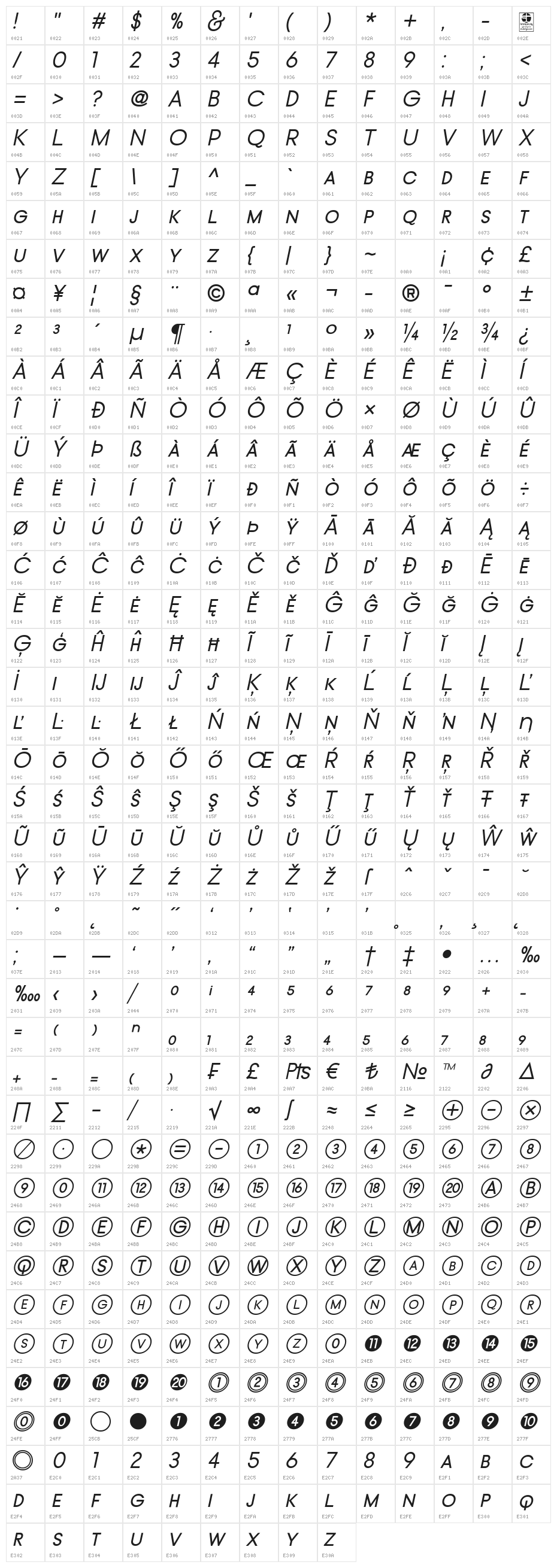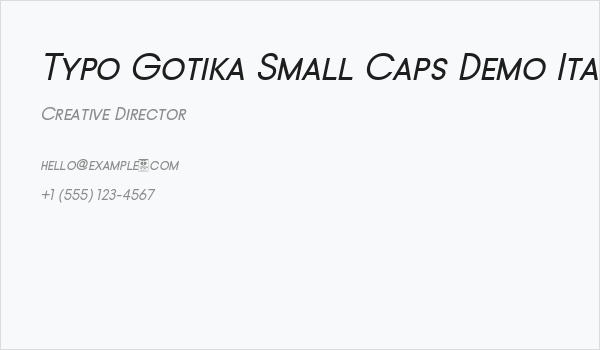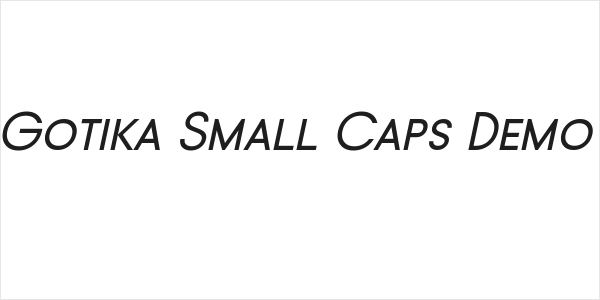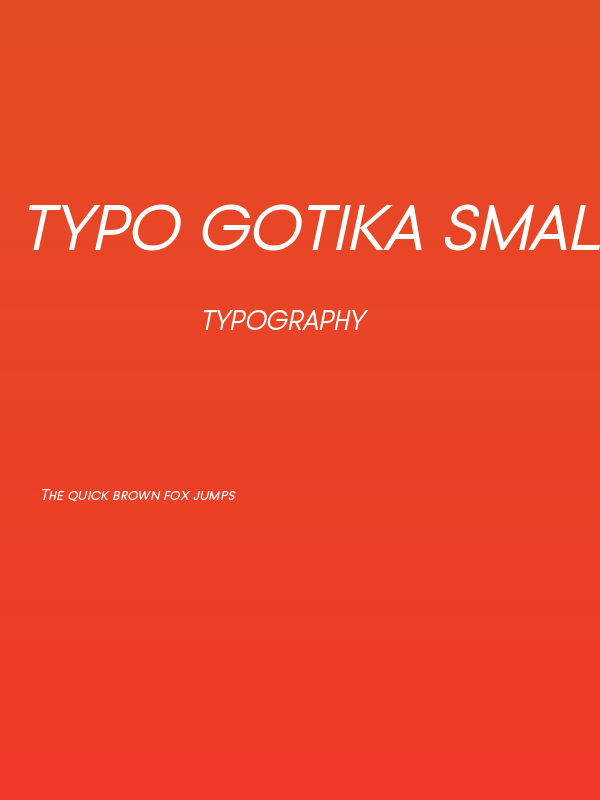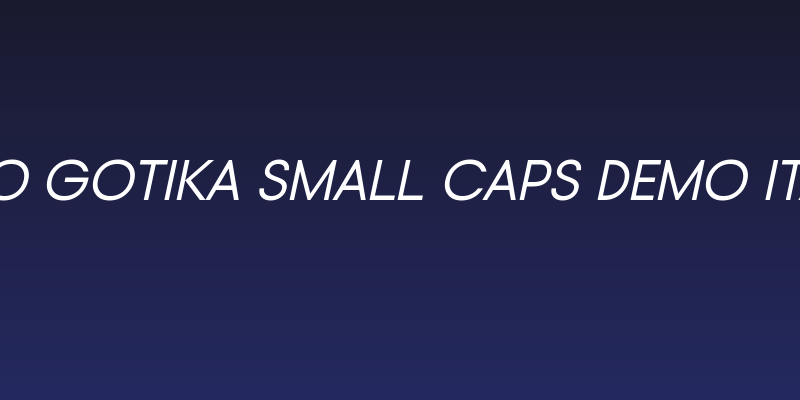
Typo Gotika Small Caps Demo Italic Font
Typo Gotika Small Caps Demo Italic Description
This font features a sleek, italicized style with a modern and clean appearance. The uppercase and lowercase letters are designed with a slight slant, giving them a dynamic and forward-moving look. The characters are evenly spaced, providing a balanced and harmonious appearance. The numerals are consistent with the letterforms, maintaining the same italicized style. Special characters are included, matching the overall aesthetic of the font. The strokes are uniform in thickness, offering a medium contrast that enhances readability while maintaining a stylish edge.
| Proposed Projects | Ideal for branding, advertising, and editorial design projects where a modern and dynamic look is desired. |